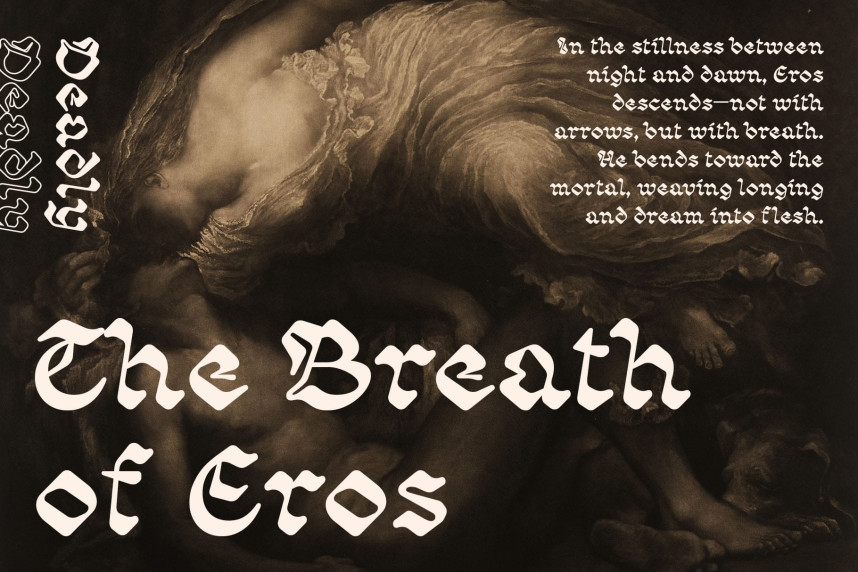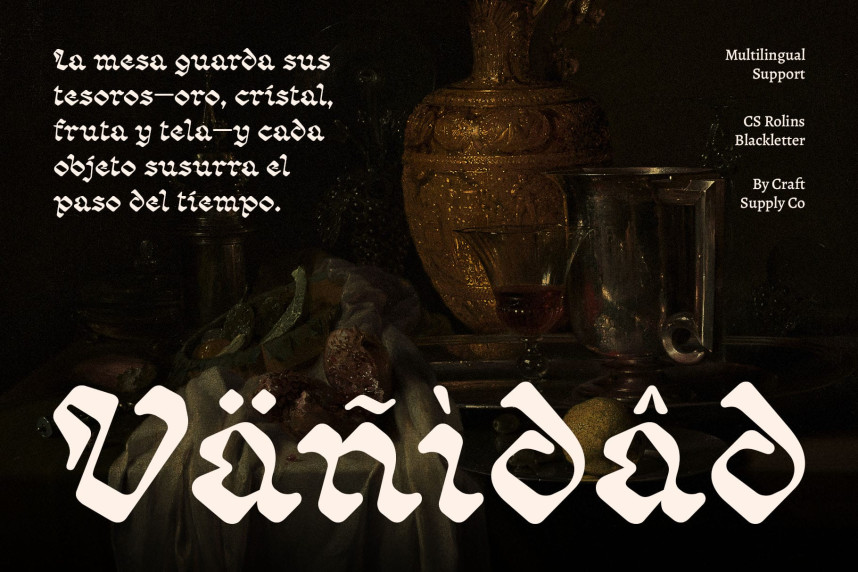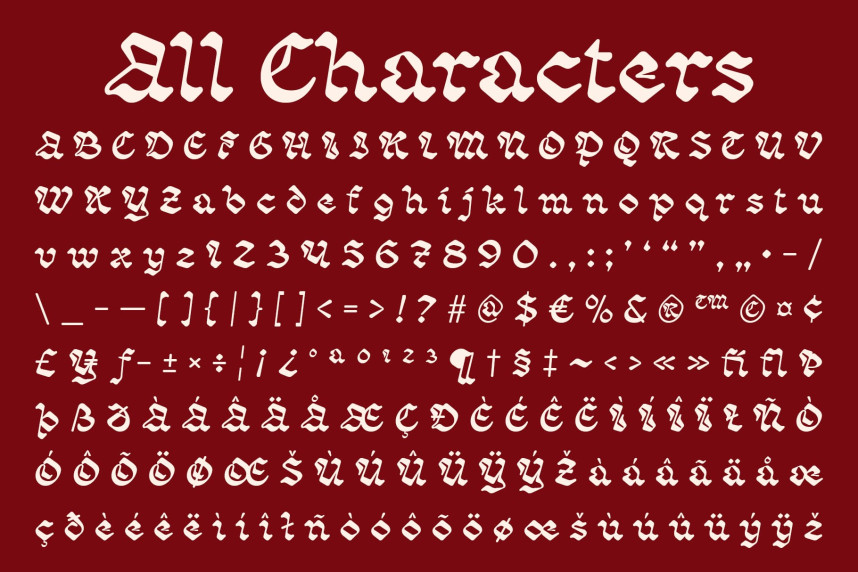
CS Rolins Font
CS Rolins Font is a striking Blackletter font that blends traditional form with slightly rounded characters for a softer, more approachable look. Its ornate details give it a distinguished presence, making it a display font that stands out in both vintage and modern settings.
Old-Fashioned Elegance
Rooted in the historic charm of Blackletter type, CS Rolins carries the essence of tradition and classic craftsmanship. Its dramatic strokes and decorative flair evoke a sense of heritage, making it perfect for projects that embrace timeless aesthetics and historical nuance.
Versatile for Bold and Expressive Design
Whether channeling the rebellious energy of rock, metal, and punk culture or the sophistication of traditional script writing, CS Rolins adapts effortlessly. Its bold form makes it a powerful choice for tattoos, music artwork, and poster design.
Perfect for Logos and Branding
CS Rolins also excels in logo design and branding where character and expression are key. Its unique balance of ornate Blackletter tradition and rounded individuality allows it to communicate strength, style, and authenticity in equal measure.